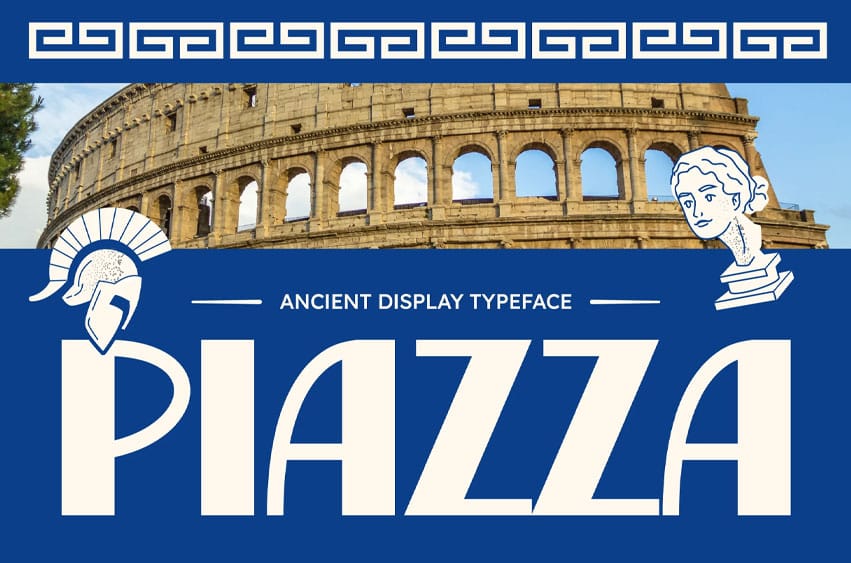
Piazza Font is ancient Greek display typeface brings together classical architectural curves, column-like verticals, and symbolic decorative elements that reflect Mediterranean history. Designed for museum branding, heritage posters, and travel promotions, PIAZZA offers a refined yet bold identity inspired by Greek-Roman monuments. The letterforms echo engraved stonework while keeping a modern, crisp, high-contrast structure suitable for today’s editorial and digital needs.
PIAZZA was created for cultural branding, historic travel campaigns, epic movie titles, museum exhibitions, editorial spreads, themed restaurants, souvlaki shops, Mediterranean product packaging, ancient mythology books, and destination postcards. The structured proportion and iconic Greek key flavor make it perfect for layouts that aim to evoke legacy, heritage, and timeless stories.